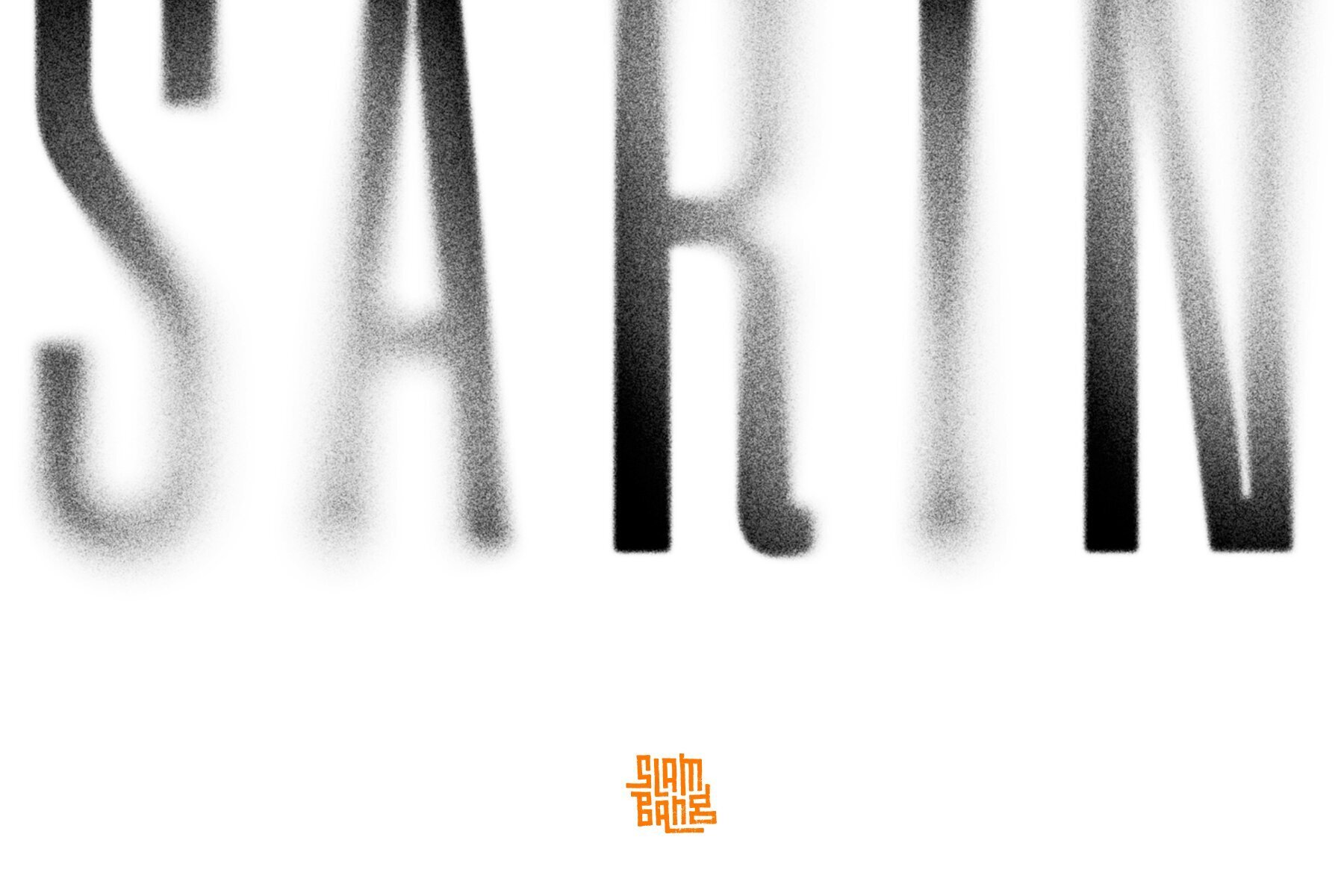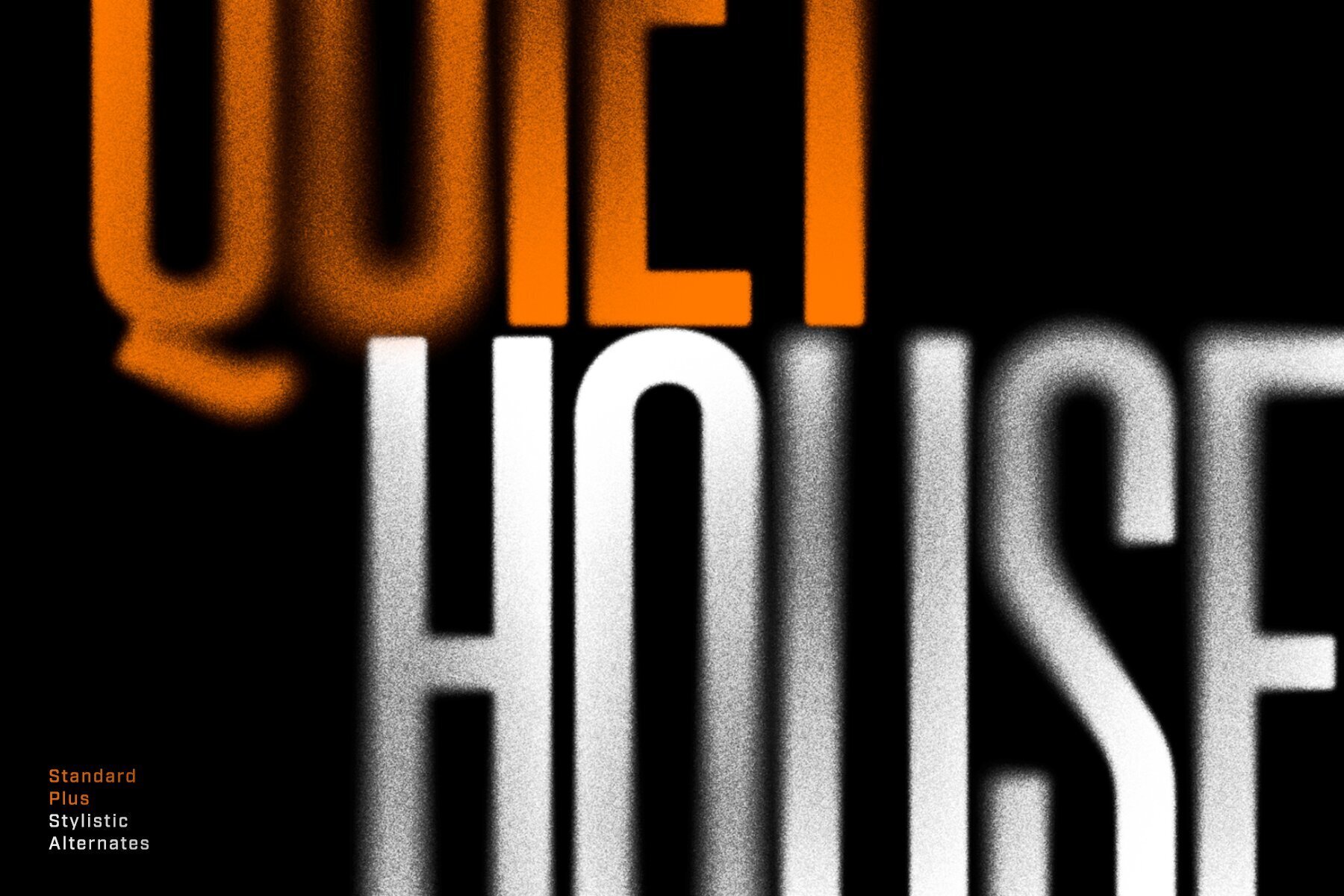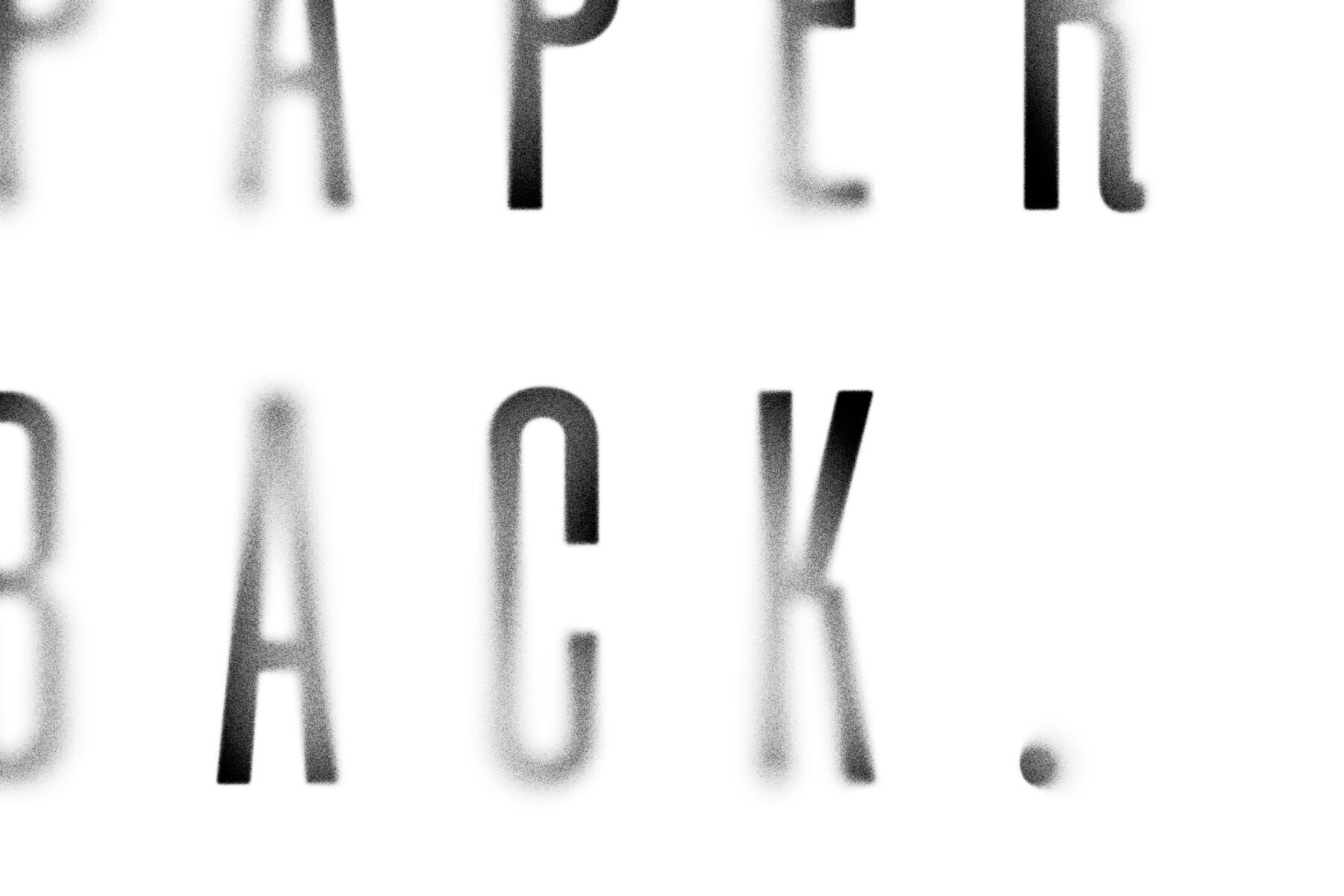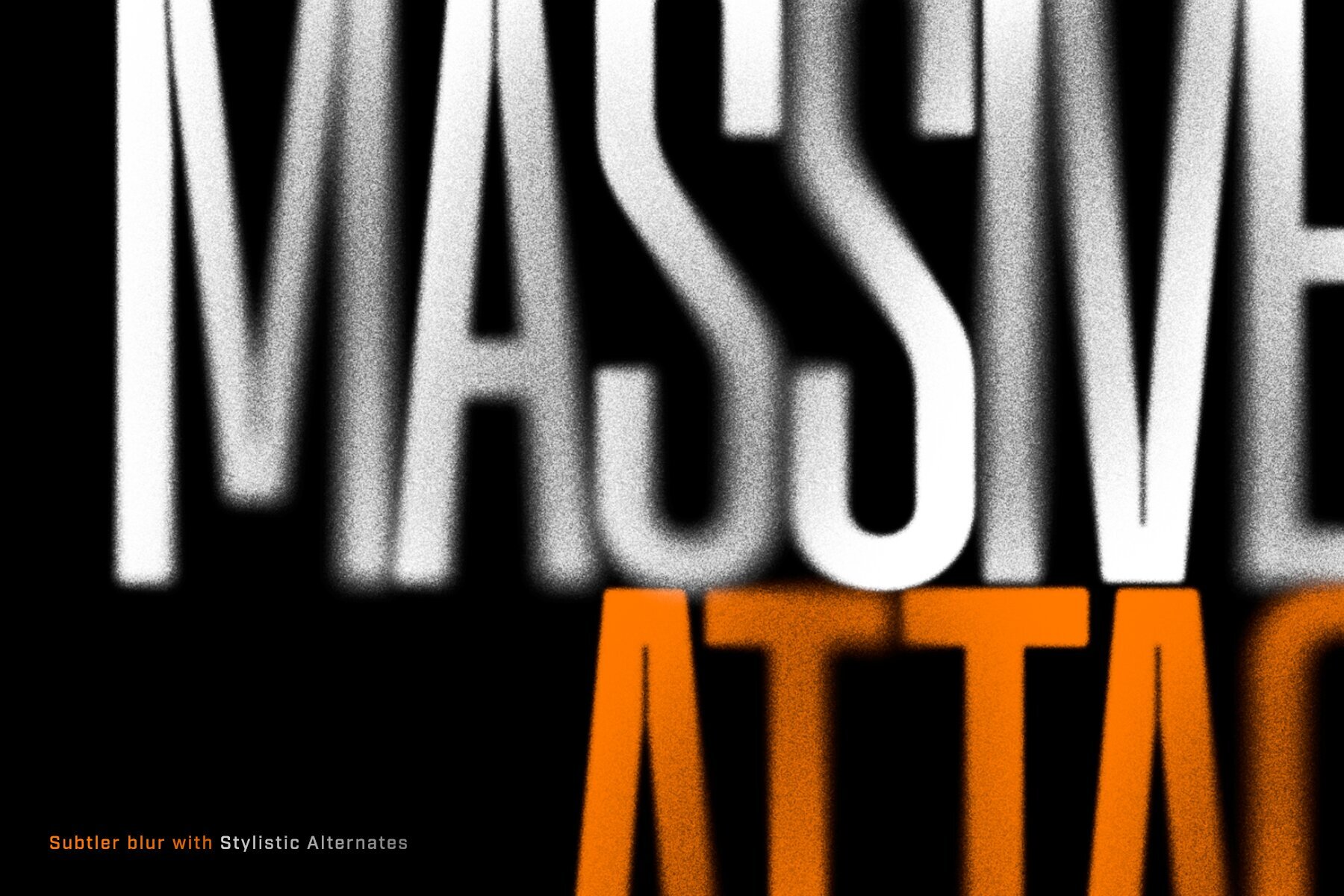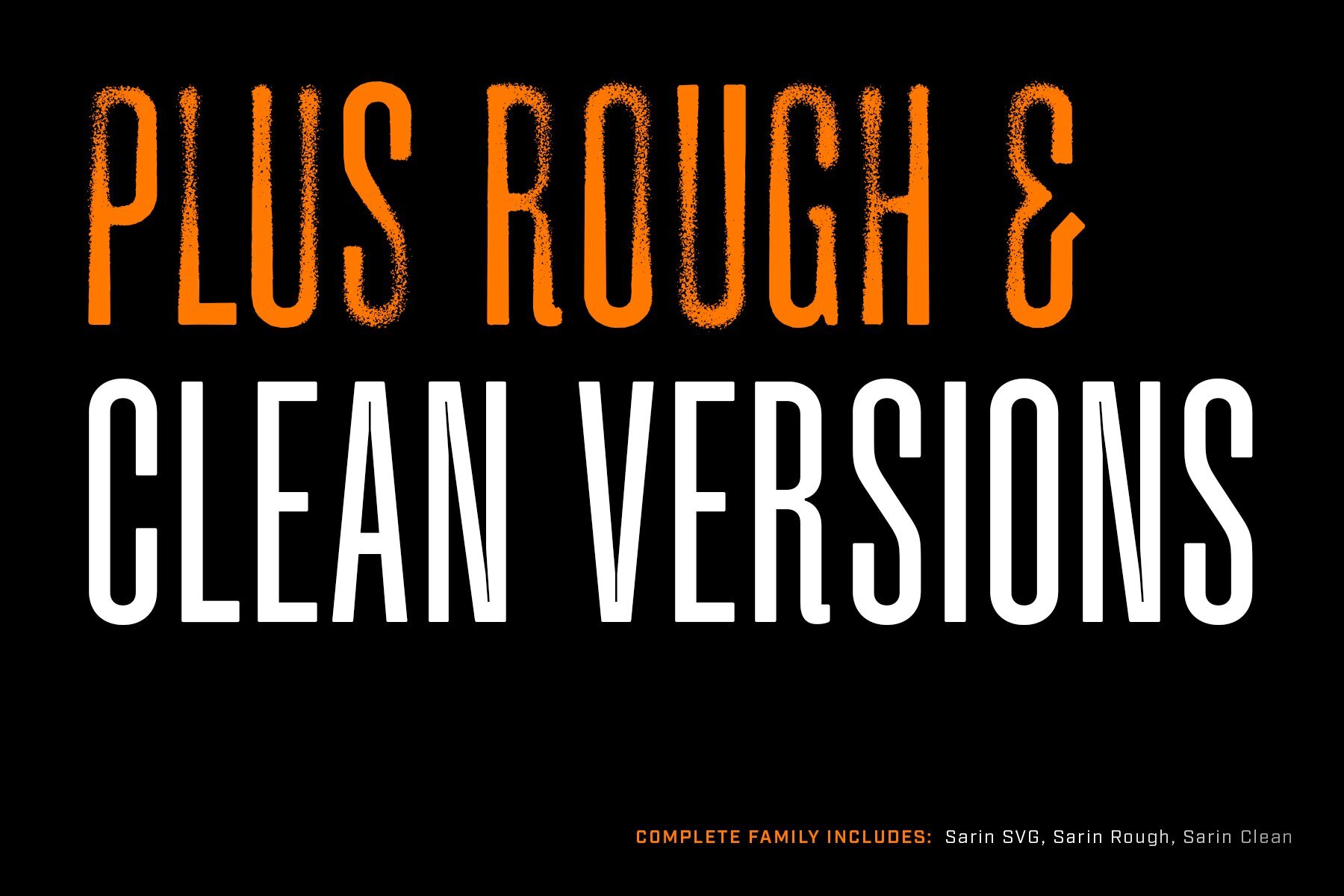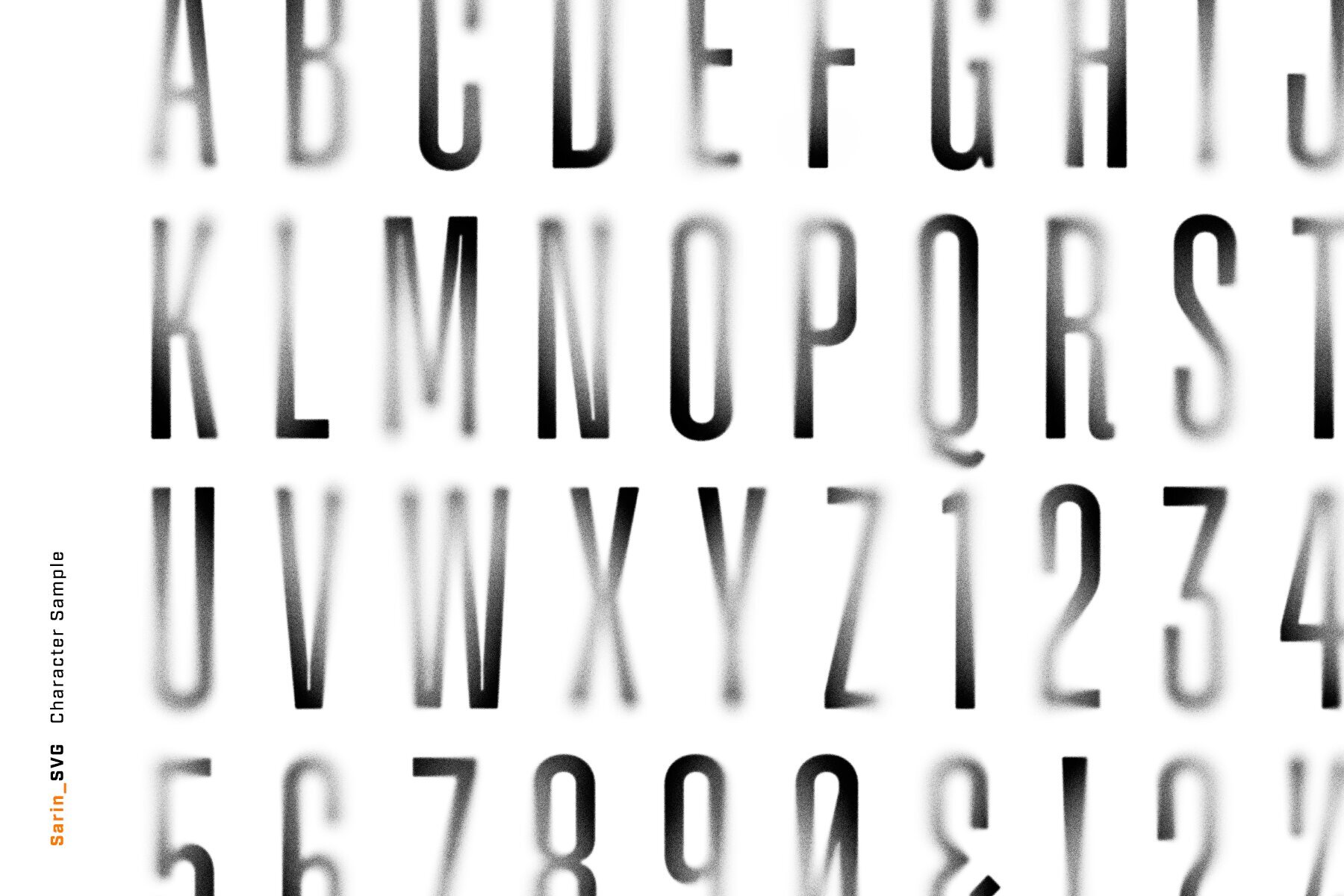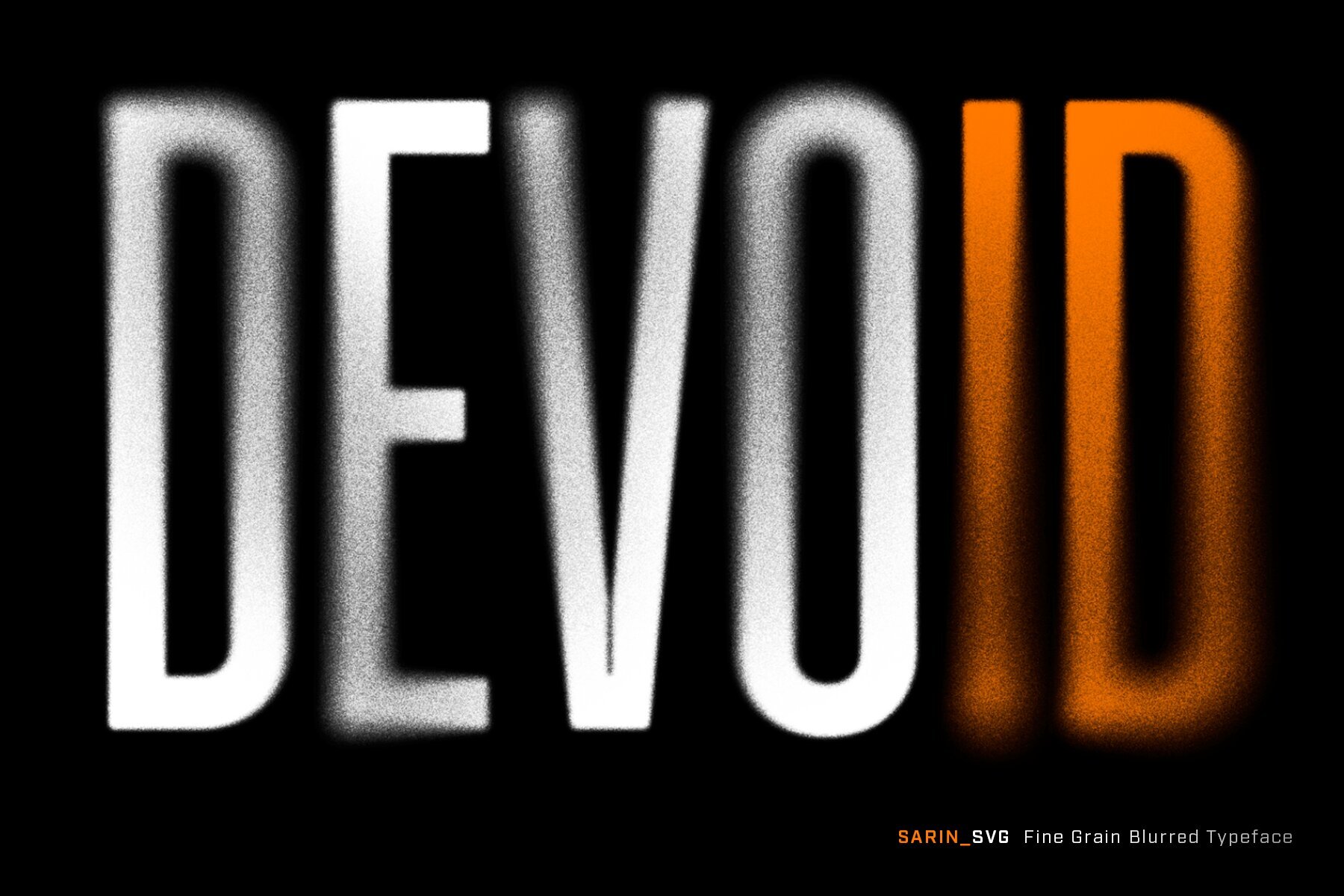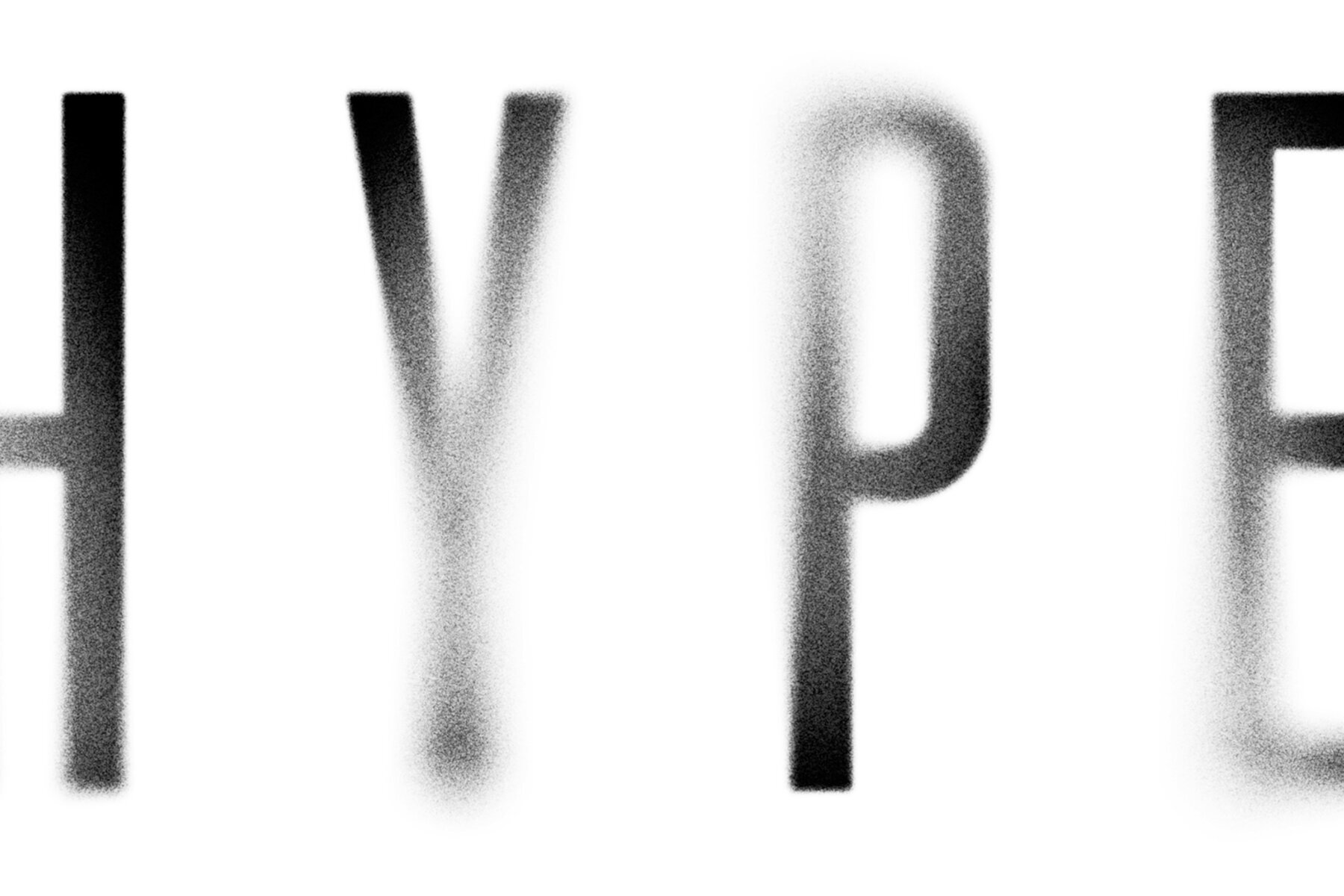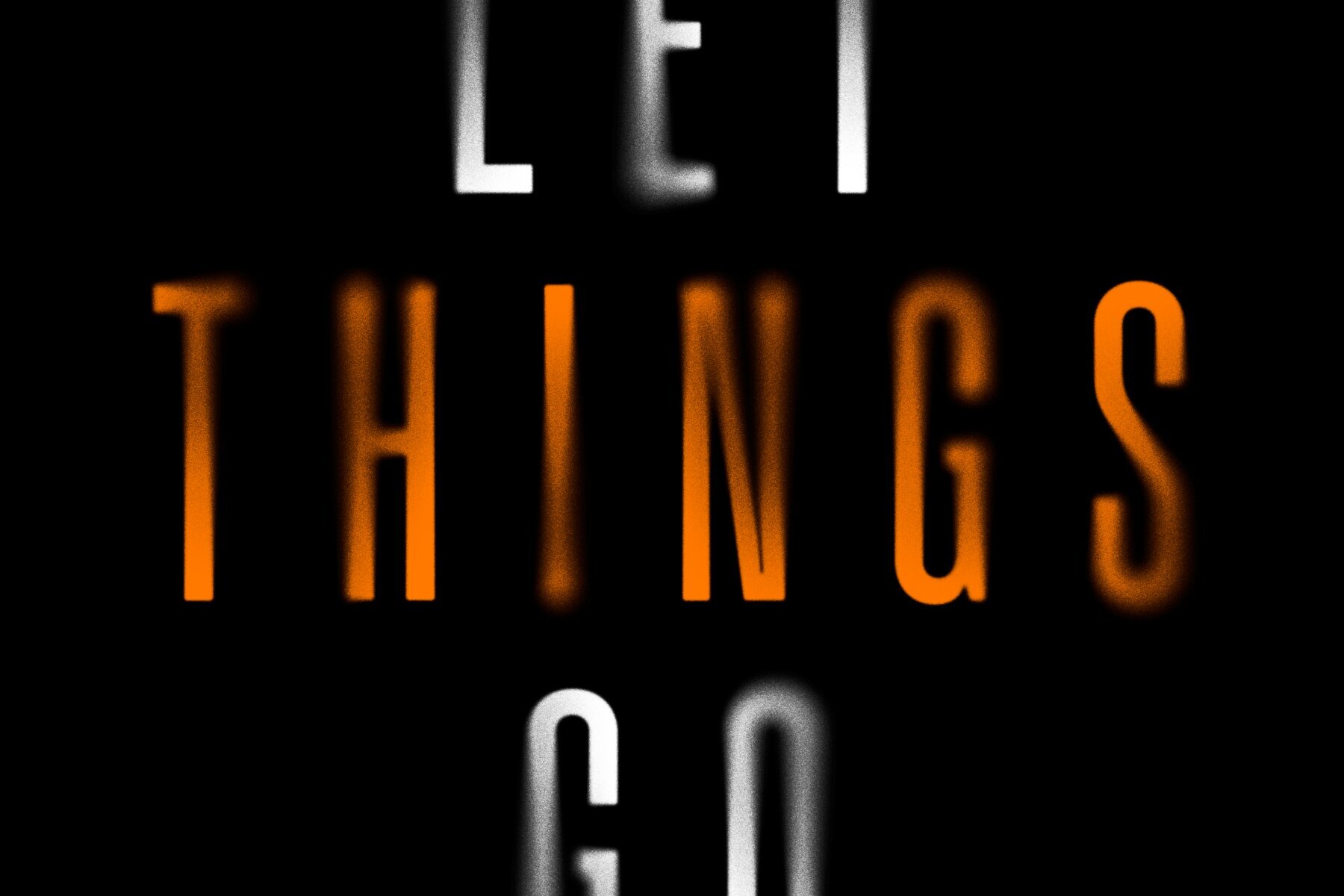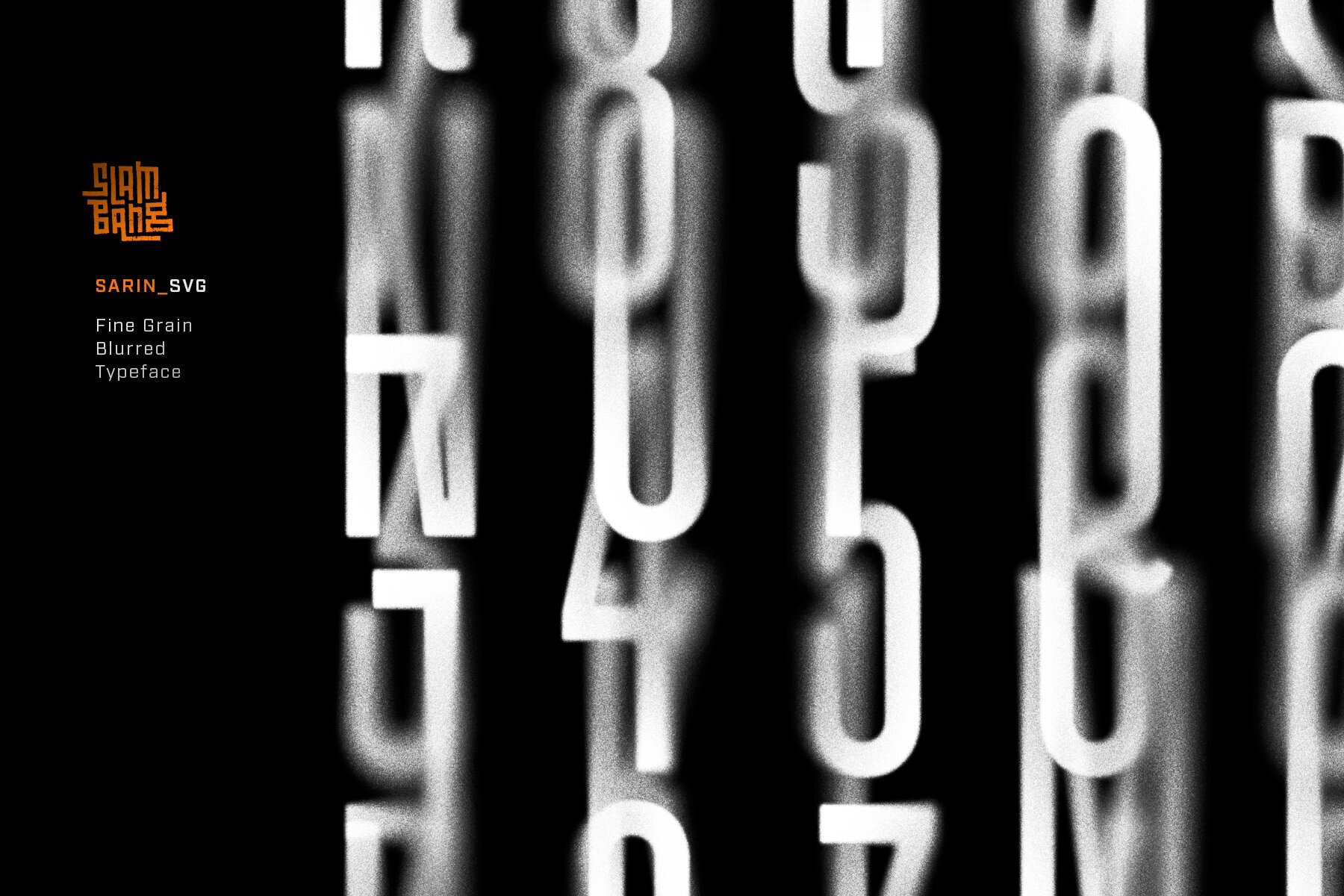
Sarin SVG Font
Sarin SVG is a condensed industrial sans with a gritty, fine-grain blur. It’s part solid and part smoke with edges that dissolve into atmosphere…a great choice for dystopian film titles, music and album artwork, experimental branding, edgy poster art or any project where depth and mystery is desired. The Sarin family also includes Sarin Rough, the vector likeness and Sarin Clean, the base sans. Sarin SVG and Sarin Rough have 4 texture versions for each letter, with the Stylistic Alternates having subtler texture. They also have a feature that automatically substitutes a variant when a letter is typed twice so texture repetition in adjacent letters is avoided. Sarin Rough and Clean are standard fonts compatible across all platforms and applications. Please note, SVG format features are optimized for Adobe software such as Photoshop, Illustrator, and InDesign.